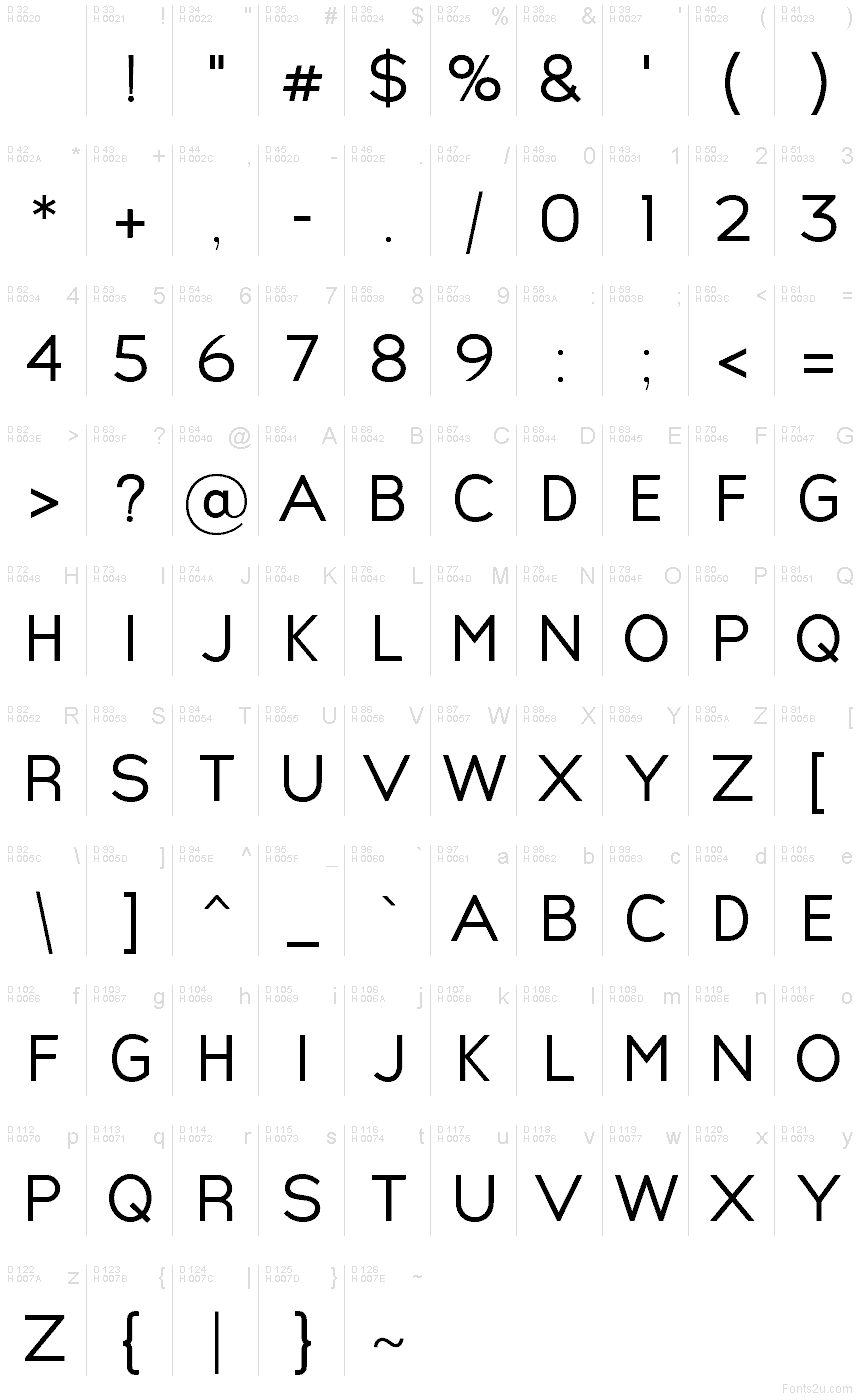
NsaiRegular
Nsai font by Audry Kitoko Makelelele is a clean and modern sans serif that combines geometric shapes to craft a minimalist design. Turning texts into clear and professional works of art, this artistic tool is built with the keen eyes of designers in mind for use in personal and commercial projects.
Use Nsai for branding designs such as advertising businesses or institutions, apparel items, or magazine covers whose headlines need to be easily readable. Simplicity opens new doors with Nsai when it’s used for packaging designs that promote products via their labels or stickers including food items. Invite readers to explore projects further by designing exciting posters, info-graphic layouts, and other UX/UI interfaces.